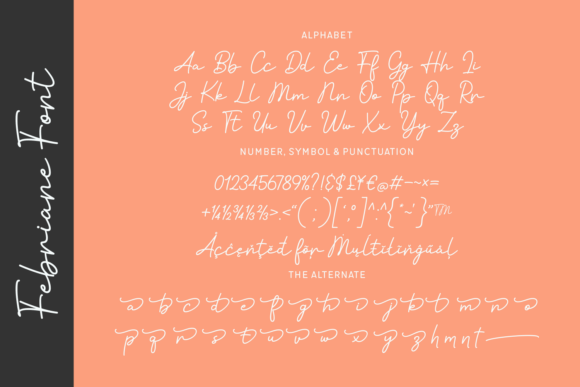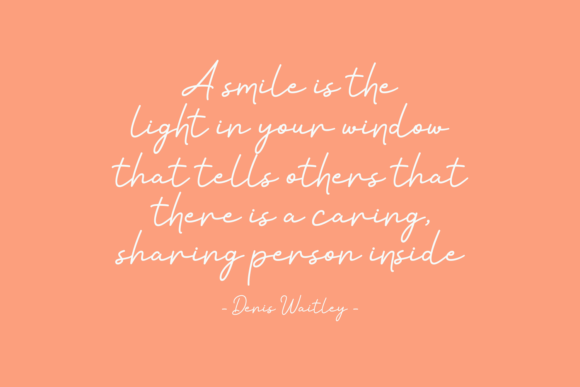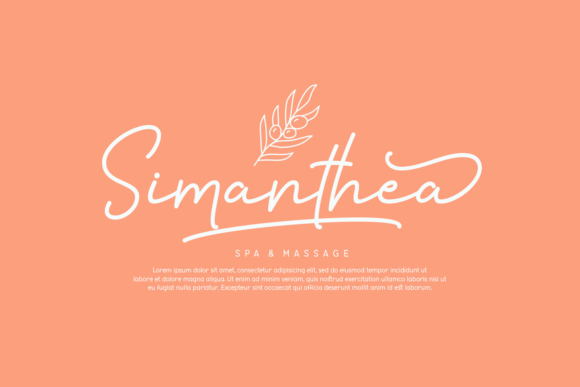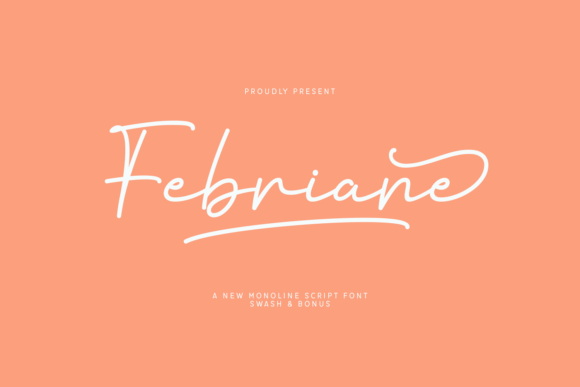
Introduction to Febriane Font
Febriane is a stylish monoline script font with clean, flowing lines and elegant swashes.
Its minimalist yet charming design makes it perfect for branding, logos, invitations, social media graphics, and more Febriane adds a personal and sophisticated touch to any project, blending simplicity with modern flair.